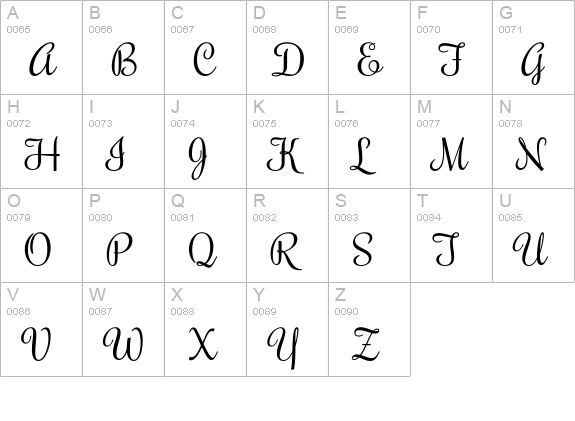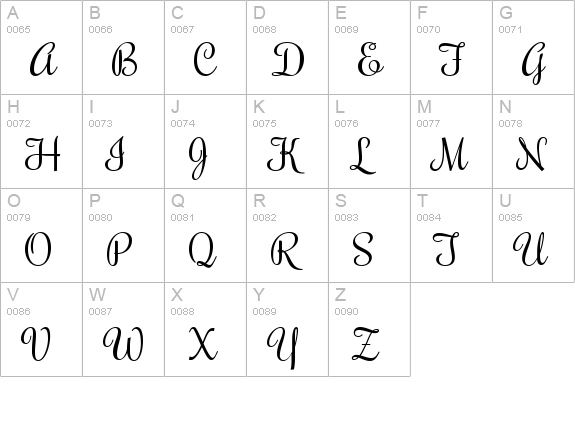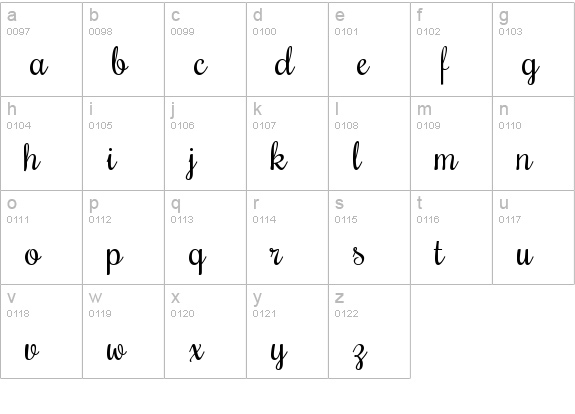
Rochester font is a beautifully elegant typeface that exudes sophistication and charm. Its graceful curves and delicate serifs make it the perfect choice for any project that requires a touch of timeless elegance. With its classic design, Rochester font adds a touch of vintage flair to invitations, wedding stationery, logos, and branding materials. What makes Rochester font even more appealing is that it is available for free! That's right, this exquisite font can be downloaded at no cost from FontsMarket.com. Whether you're a professional designer or someone looking to add a touch of class to your personal projects, Rochester font is accessible to everyone. With its clean lines and balanced proportions, Rochester font is highly legible and versatile, making it suitable for a wide range of uses. Its refined and graceful appearance is sure to capture the attention of viewers and leave a lasting impression. Whether you're designing a romantic wedding invitation, a sophisticated logo, or a stylish blog header, Rochester font is the perfect choice to elevate your design. Its timeless appeal and free availability make it an asset to any designer's toolkit. So why wait? Head over to FontsMarket.com and download Rochester font today to add a touch of elegance to your next project!